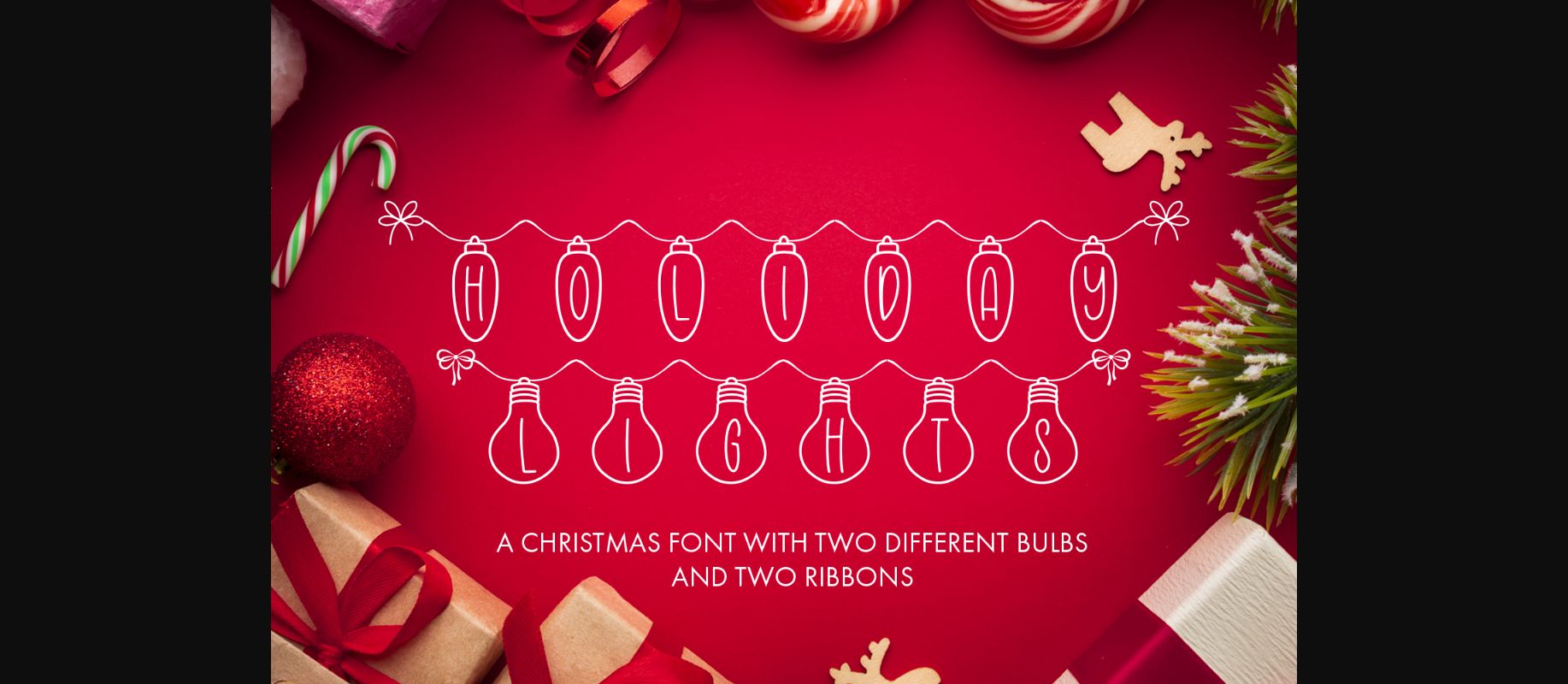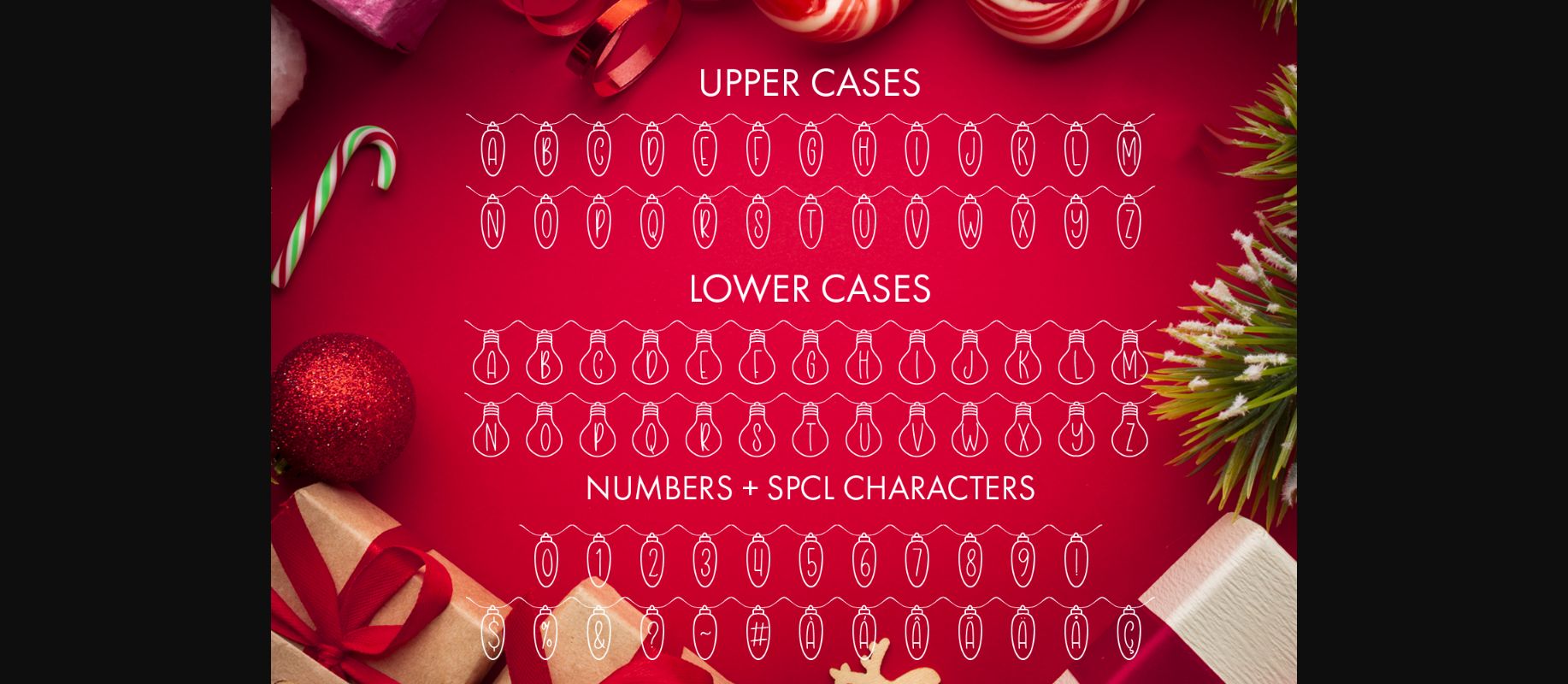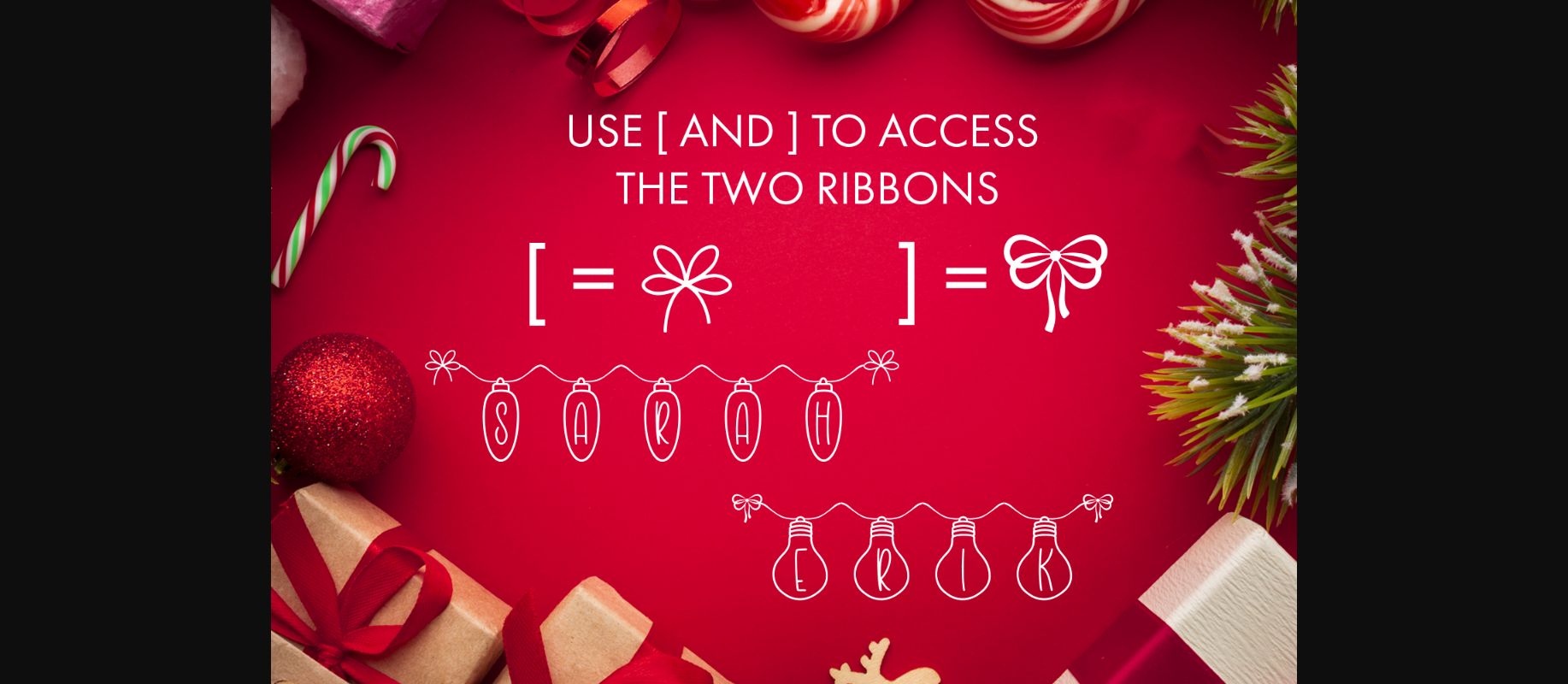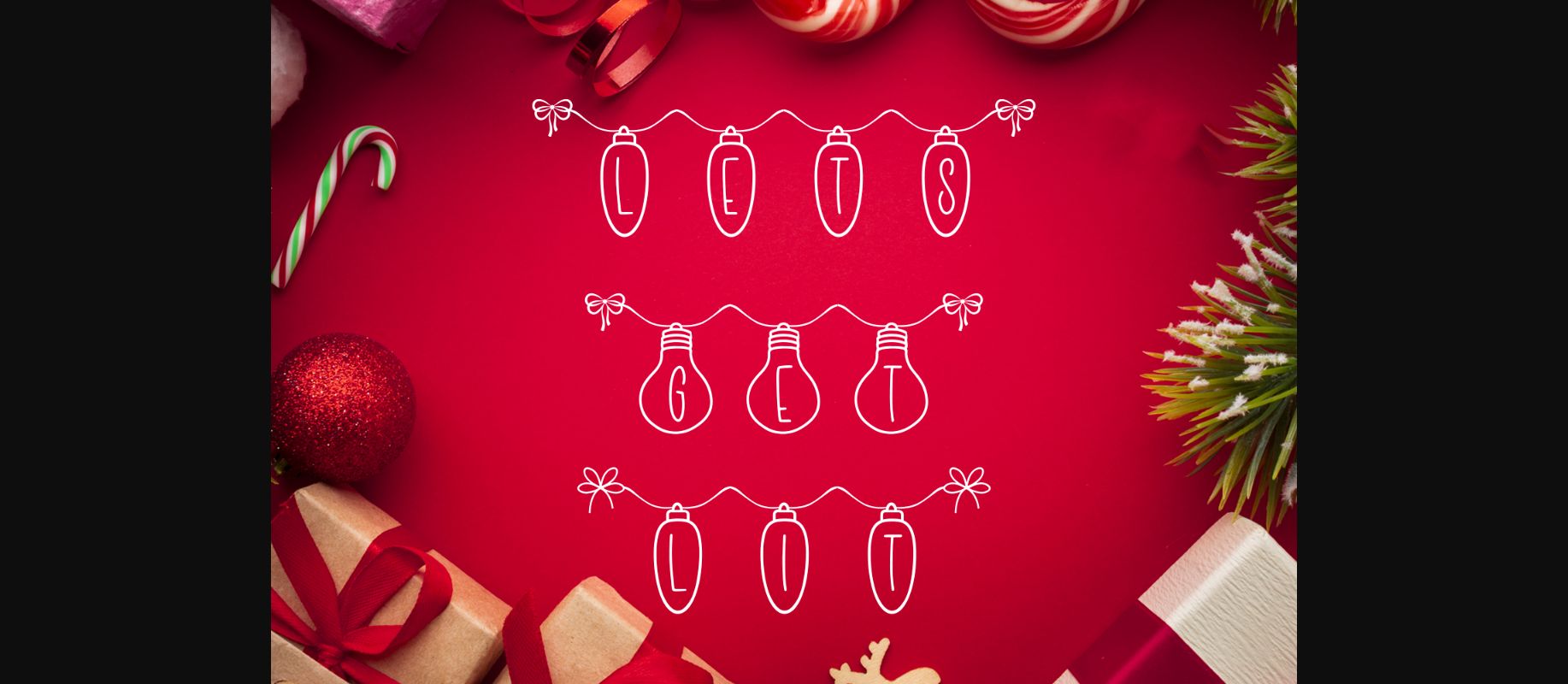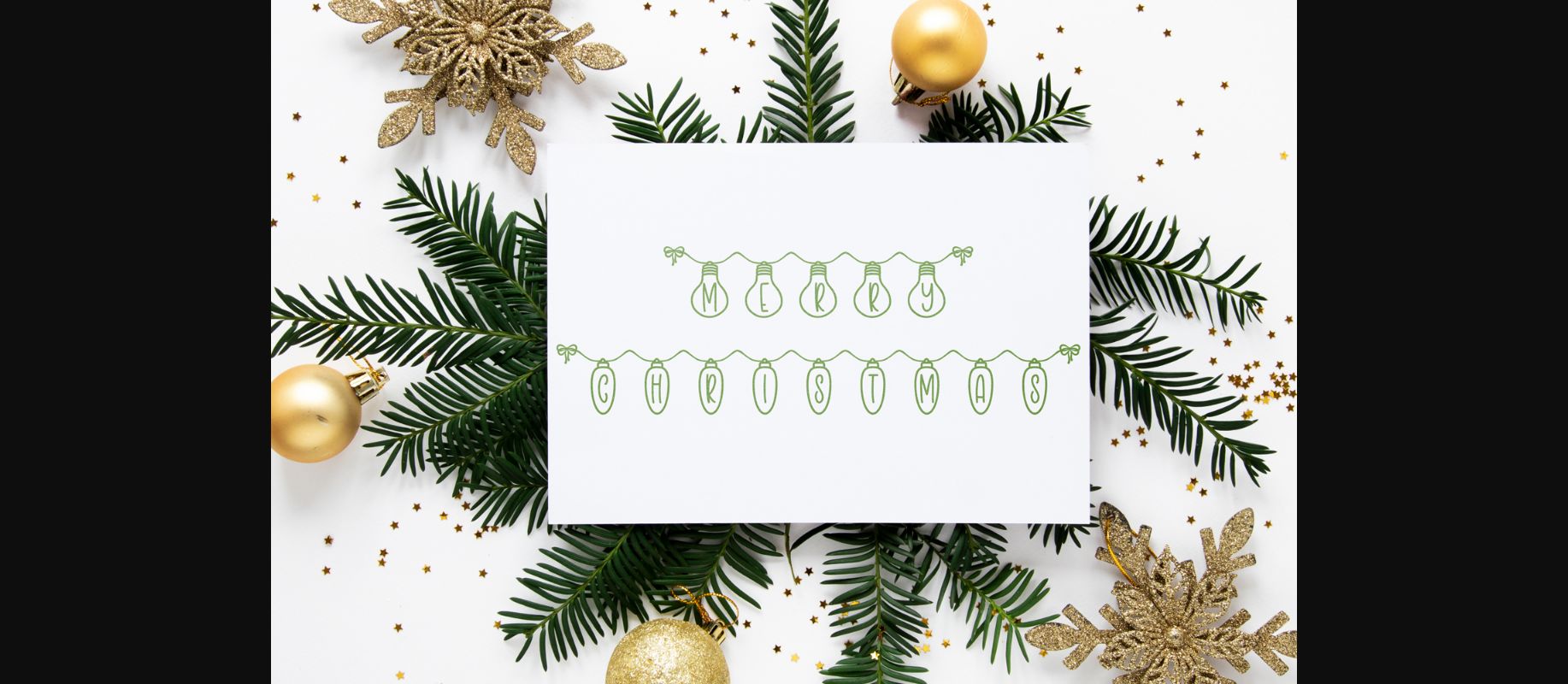
Holiday Lights Font
About Holiday Lights Font
Holiday Lights is a beautiful Christmas-themed decorative font. This is the perfect font for making original and outstanding christmas cards or any holiday related designs.